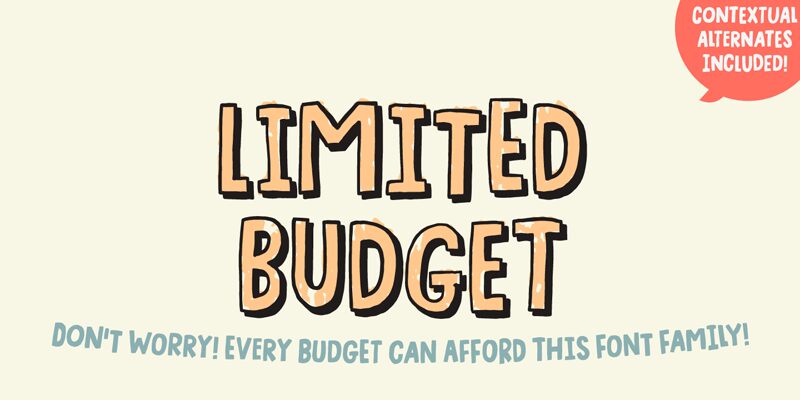
Limited Budget, an exquisitely designed typeface by Pizzadude, is perfect for projects that demand a touch of whimsy and playfulness. With its semi-bold weight and semi-condensed width, this display font adds a delightful charm to children's books, comic strips, and animated videos. Whether you're crafting a catchy logo or designing eye-catching illustrations for websites or advertisements, Limited Budget's cartoon style effortlessly captures attention and injects vivacity into every creative endeavor. Embrace the versatility of this font to infuse your projects with a dash of personality while staying within your budgetary constraints.